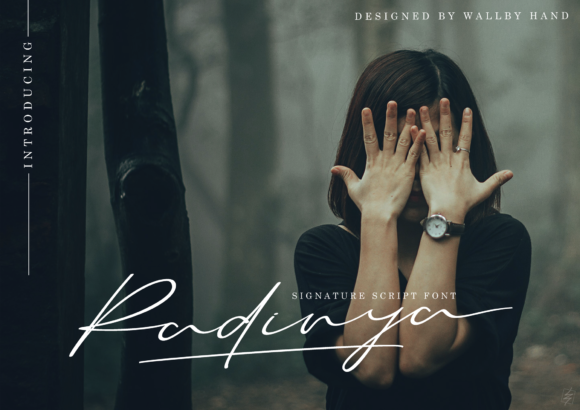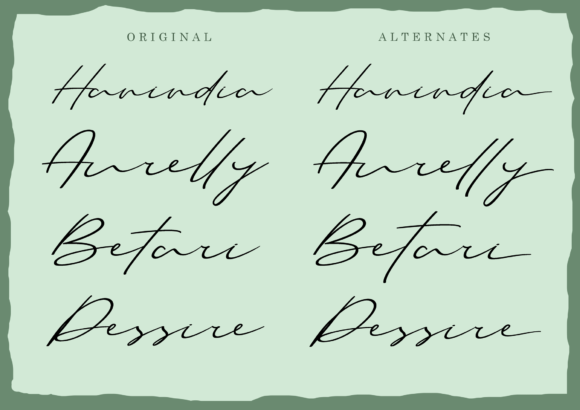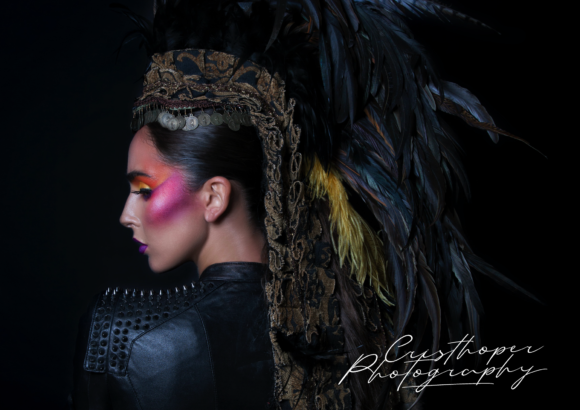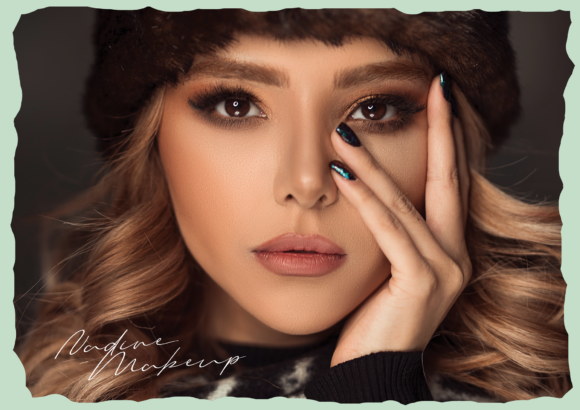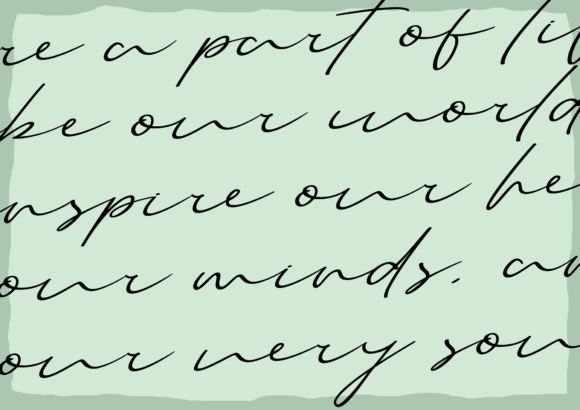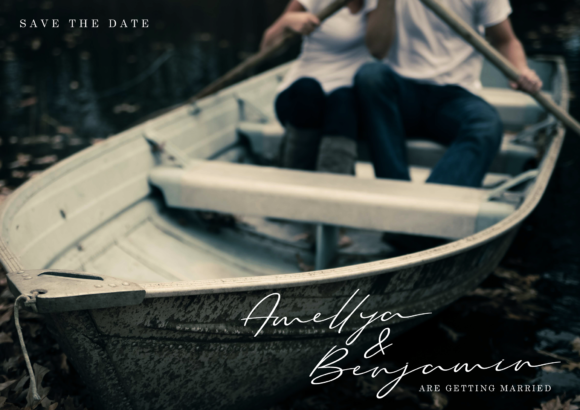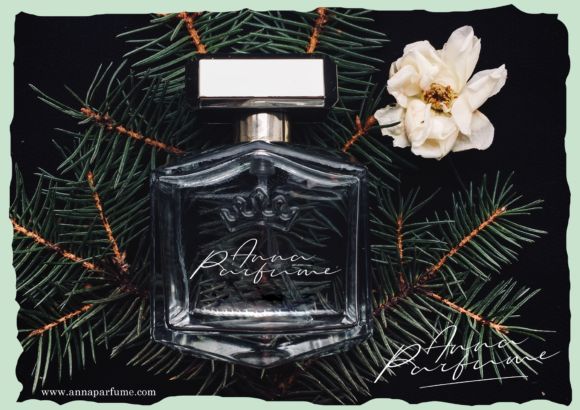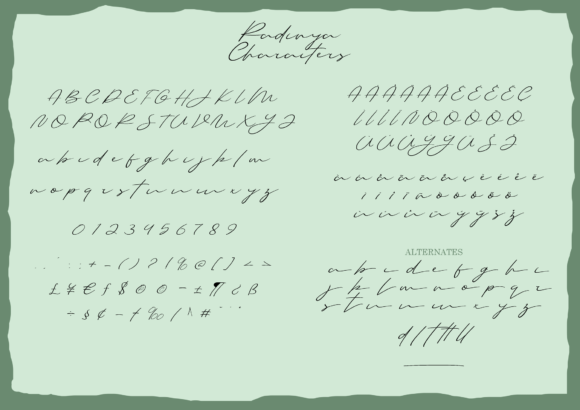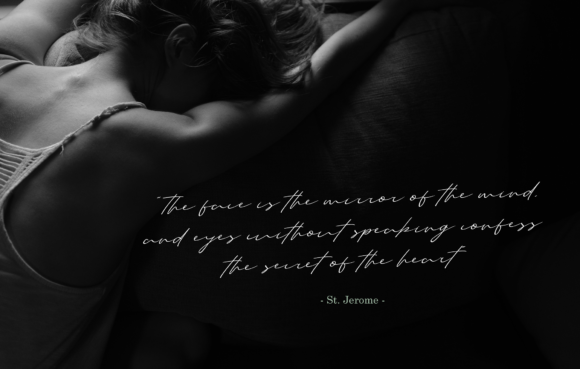
Radinya Font
About Radinya Font
Radinya is a signature script font. It features an incredibly classic style, while still keeping a friendly feel. Radinya is the perfect font for making original and outstanding designs.